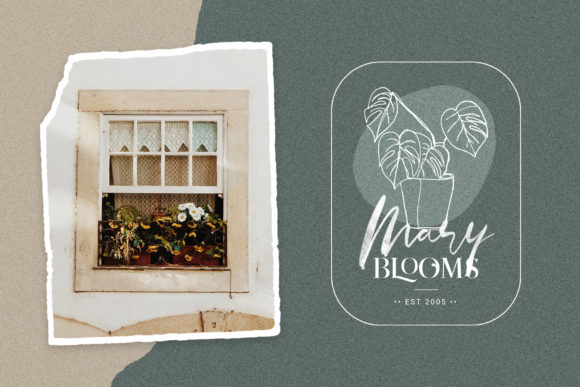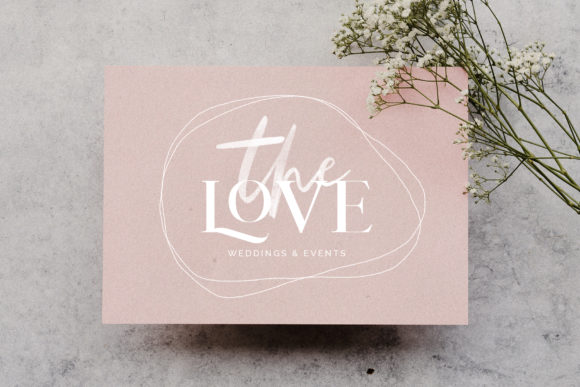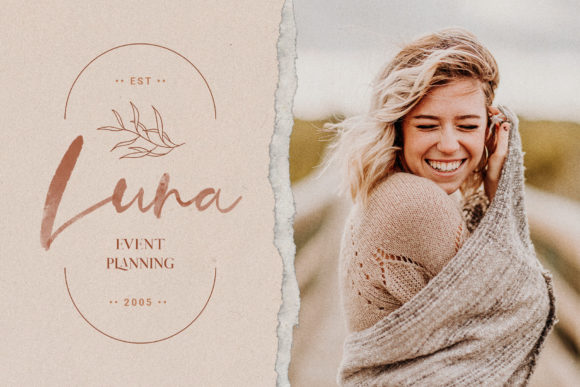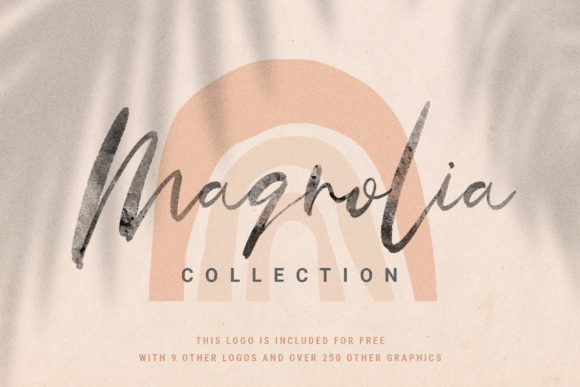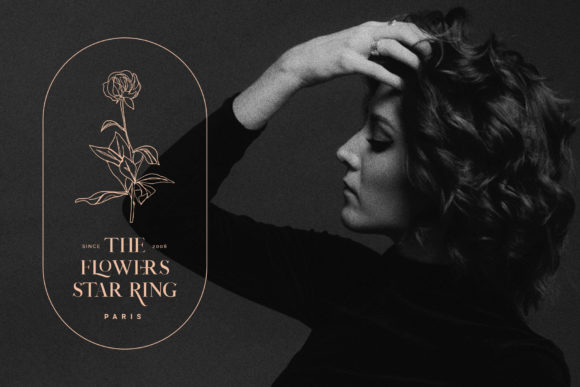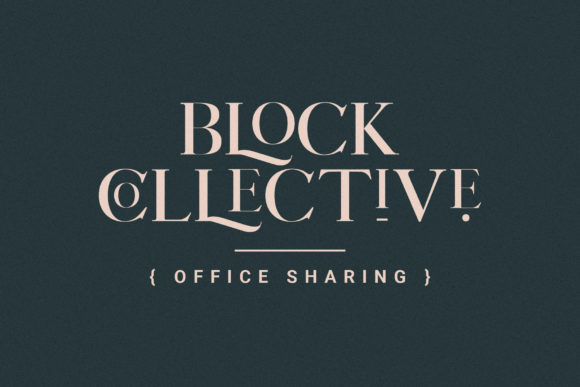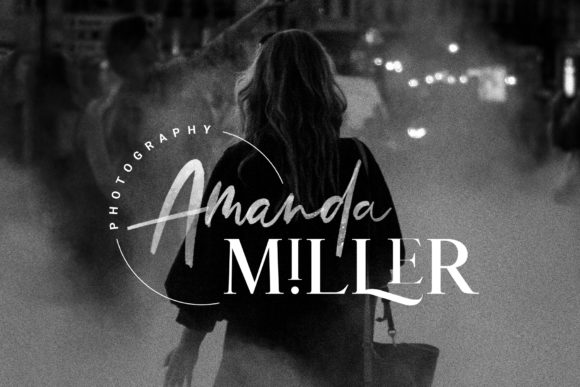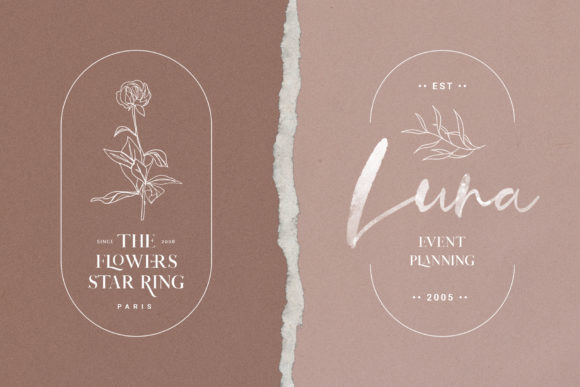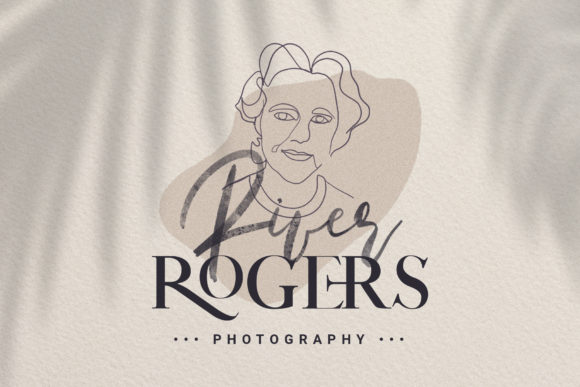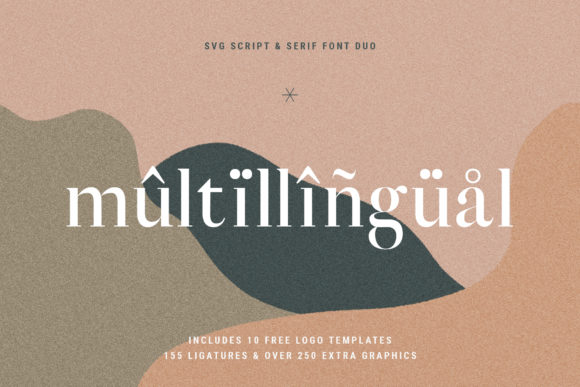
January Love Font
About January Love Font
January Love brings together two gorgeous fonts: A stunning script and a sophisticated serif that, when combined, will deliver outstanding results. Fall in love with its timeless charm!